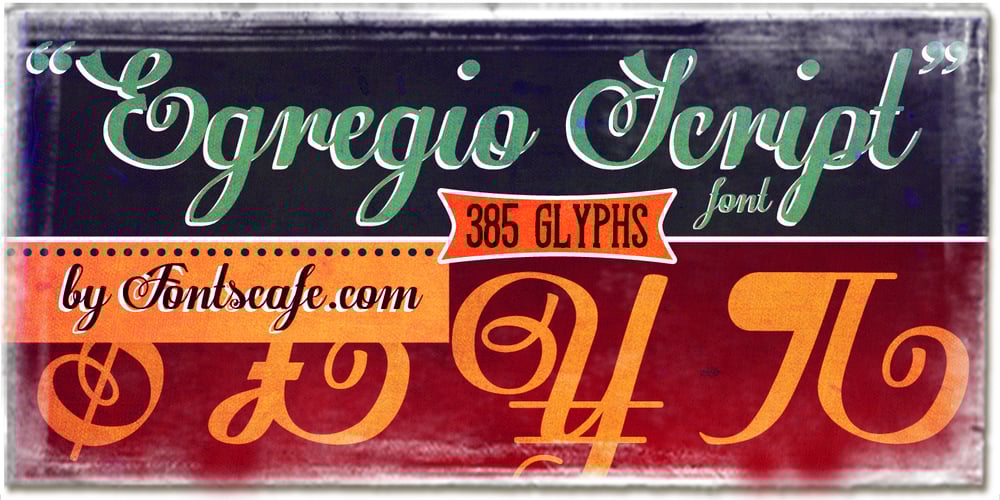
Egregio Script Font Family was designed by published by Fontscafe. Egregio Script contains 1 styles and family package options. We at Fontscafe are forever trying to work on conniving up typography that will blend itself into your work space in a manner that will make you wonder how you ever managed without it…and that effort has led us to the birth of yet another all-new font for you! And this one like most of our others has a niche appeal although it is versatile as versatile can be. Now this is a font that can pretty much fit the bill when you want to send out an exclusive appeal but yet not overly formal. It is styled with fonts that cry out ‘eliteness’ and exclusivity, but without the part where it becomes so exclusive and classy that it goes way over people’s heads! The ‘Egregio’ can still connect on a very personal, almost friendly level with your audience while it remains in a class of its very own!